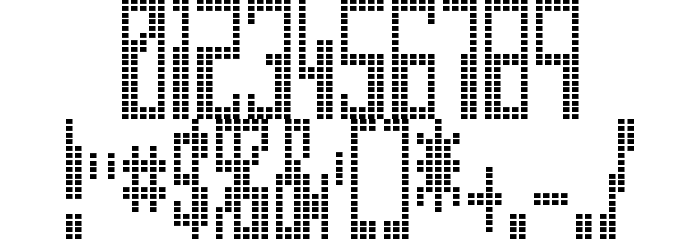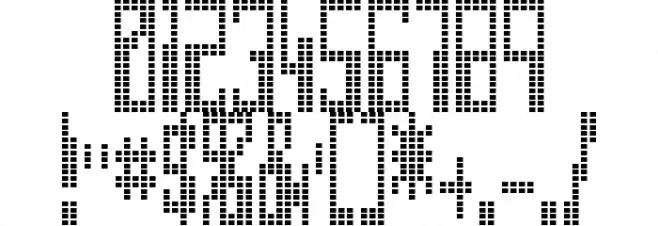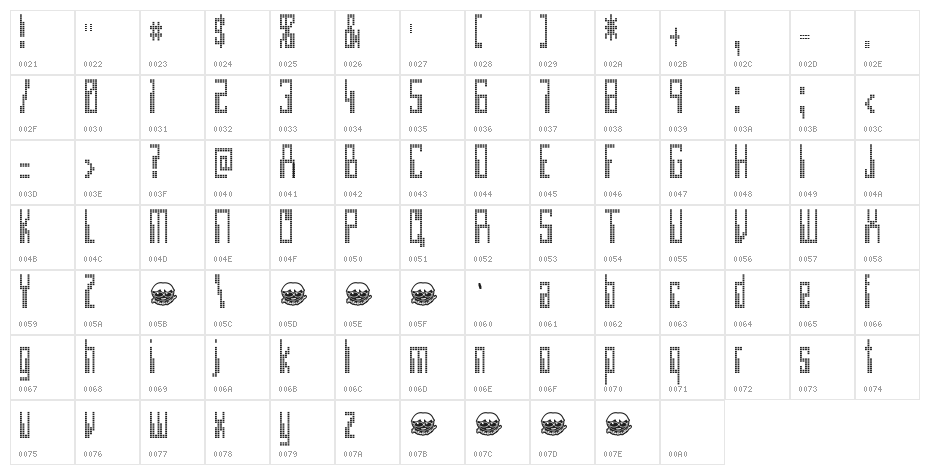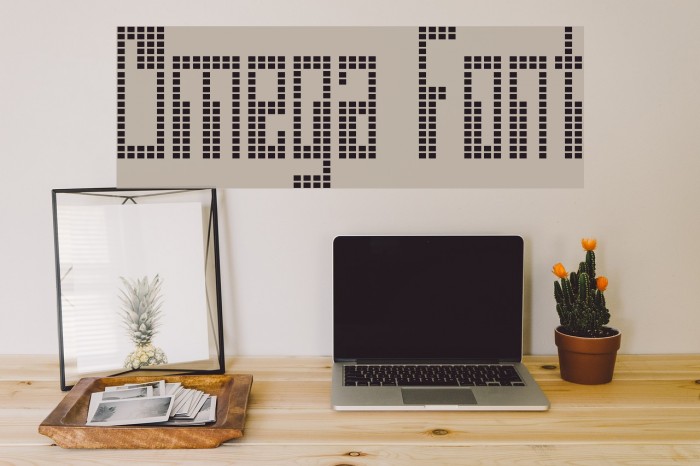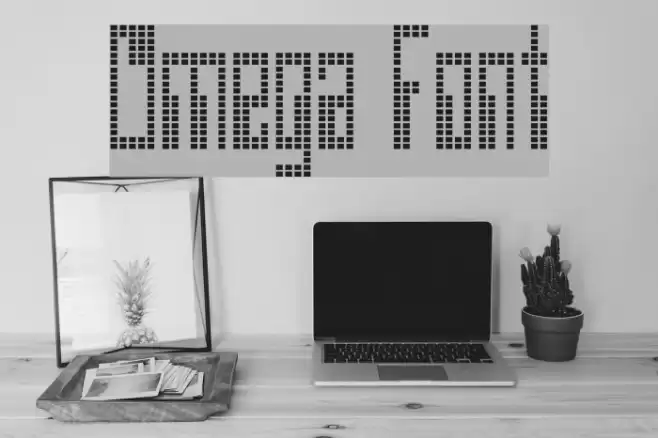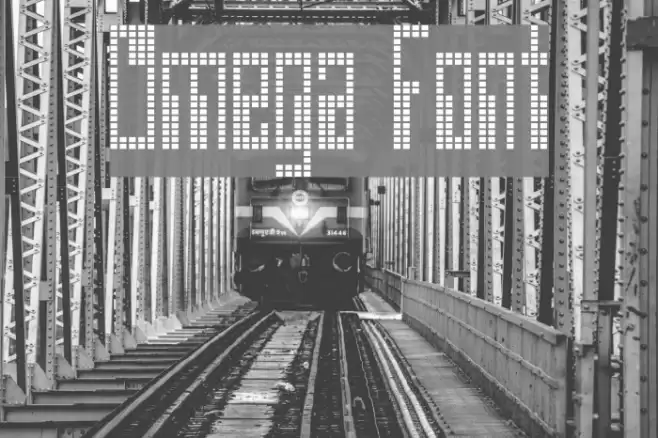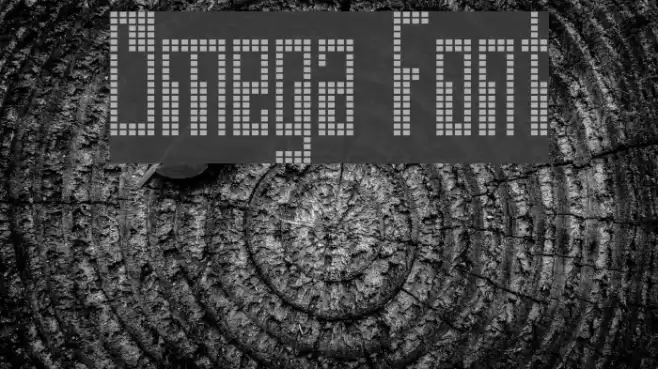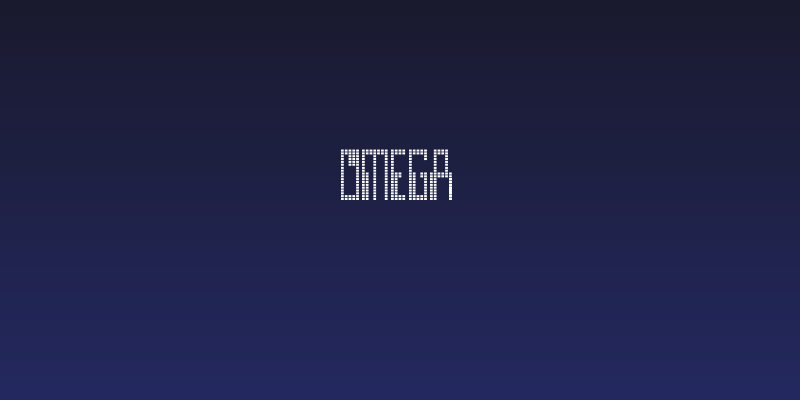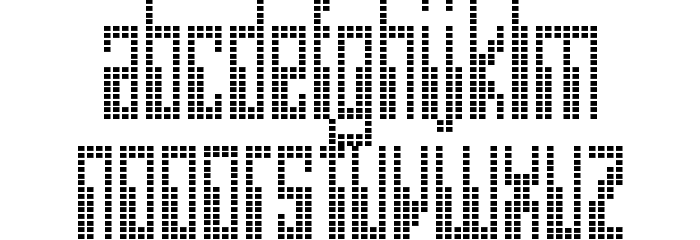
Omega Font
Omega Description
This font is a unique and modern display typeface composed entirely of small, uniform dots arranged in a grid pattern to form each character. Its pixelated style gives it a digital, futuristic appearance, reminiscent of early computer displays or LED screens. The characters are evenly spaced, maintaining a consistent rhythm across both uppercase and lowercase letters, as well as numbers and special symbols. The font's geometric structure and uniformity make it highly legible, even at smaller sizes, while its distinctive style adds a bold, eye-catching element to any design. This typeface is particularly well-suited for projects that aim to convey a sense of technology, innovation, or retro digital aesthetics.
| Proposed Projects | Ideal for tech-themed designs, digital art, video game interfaces, and retro-inspired posters. |